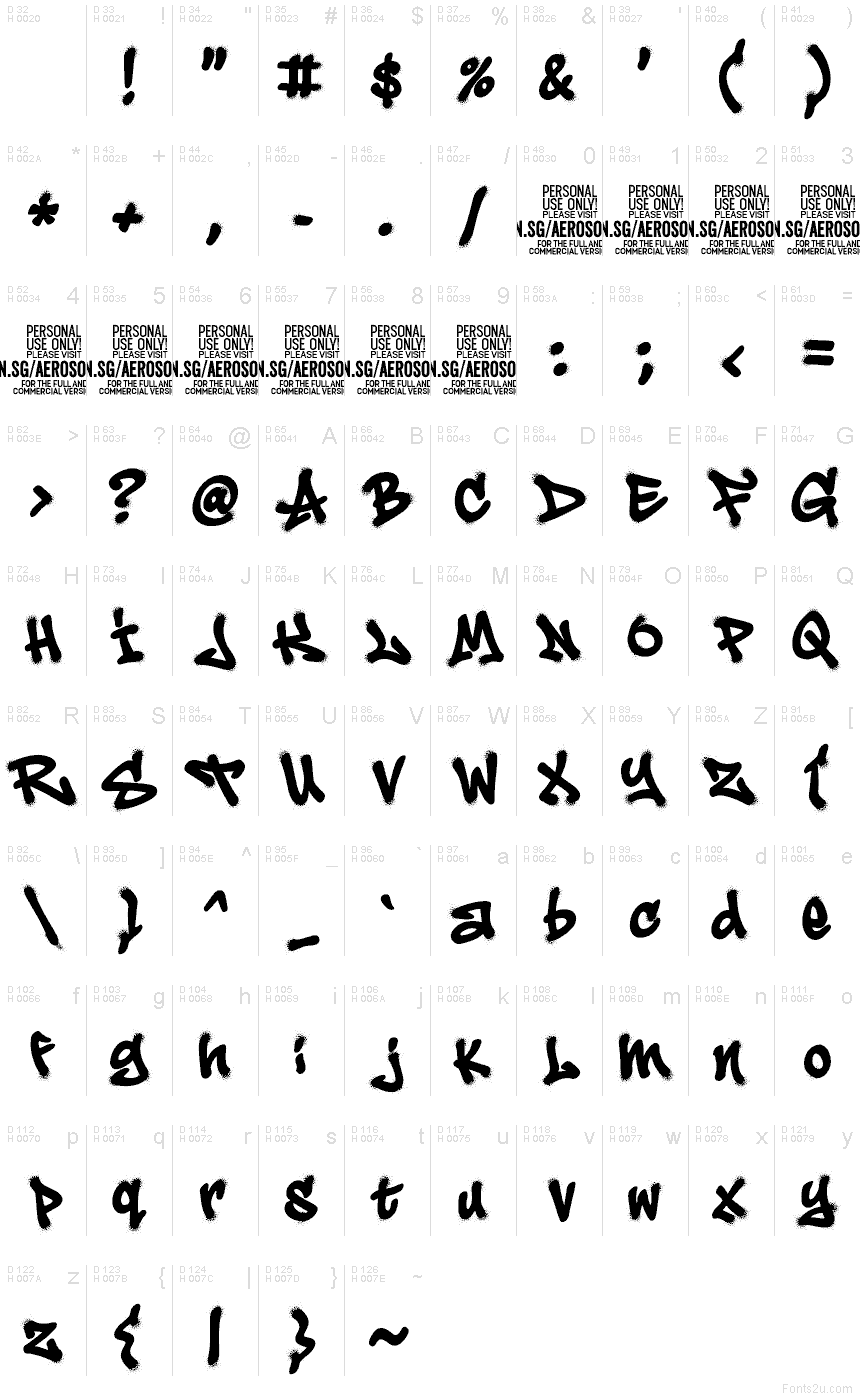
Aerosoldier Spray PERSONAL USE Regular
Aerosoldier Spray font by Mans Greback is a free graffiti tag typeface from the Aerosoldier family, built for grit and motion. Its inky strokes snake across the line with a quick-wrist rhythm, while soft overspray halos and occasional drips sell the wall-to-can realism. With twelve styles-from crisp marker flow to splattery, paint-heavy cuts-it lets you dial the exact level of mess and menace your concept needs.
Using Aerosoldier Spray gives headlines a lived-in street texture that reads loud at a glance. It shines on streetwear branding, album covers, skate or BMX event posters, game titles, bold stickers, and edgy packaging. Keep body copy clean: pair this free font with a neutral sans like a geometric grotesk and let Aerosoldier handle the punchy parts.